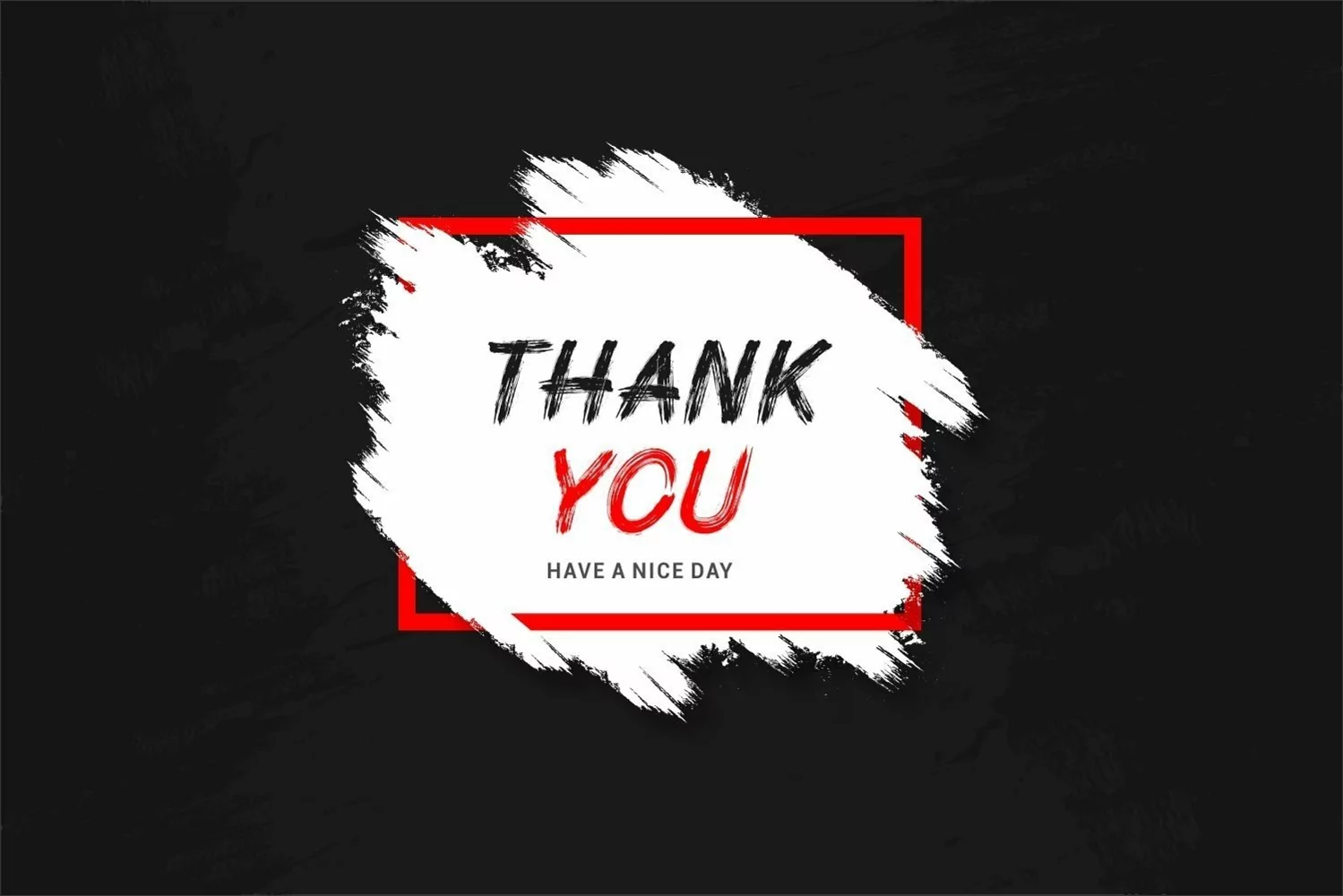
Skate Matter is san serif display come with street-wise brush texture. This is bursting with energy, with extra attention to quick strokes and sharp details. It matches applies in some designs such as the logotype, brand, packaging, quotes, poster, t-shirt, invitation and more custom design. The features uppercase, lowercase, numeral, punctuation & symbol, multilingual support, PUA encoded (fully accessible without additional design software).